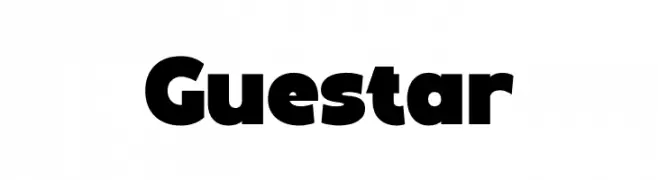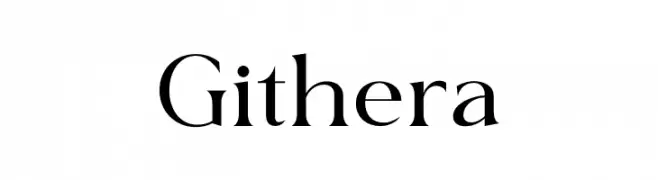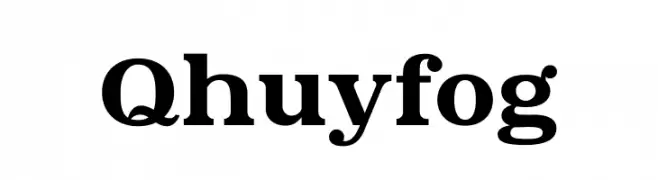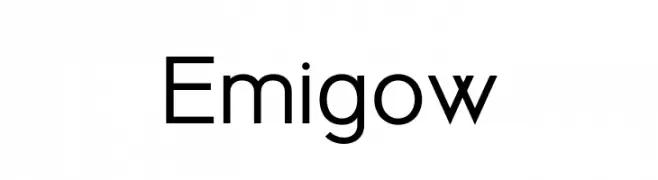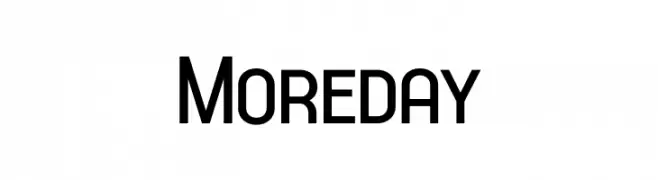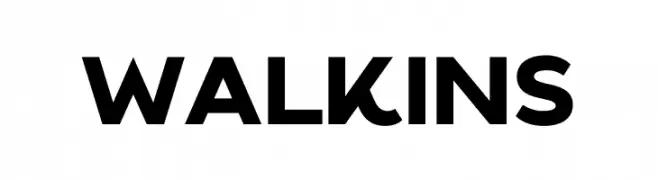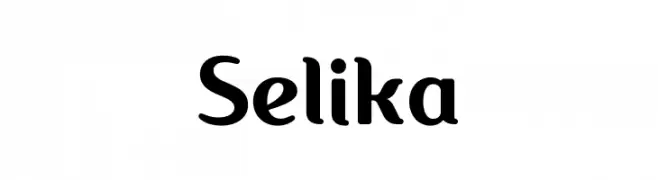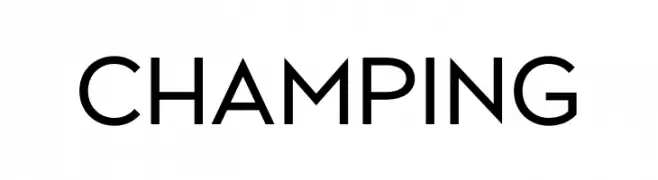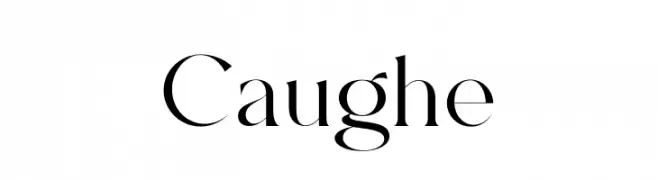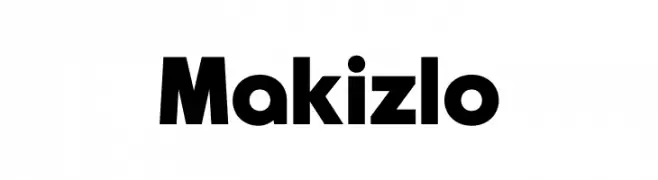
A bold, modern font with thick, uniform strokes and a strong presence.
A classic serif font with high contrast and sharp serifs, exuding elegance and readability.
A bold, classic serif font with strong strokes and pronounced serifs.
A modern, geometric sans-serif font with clean lines and uniform strokes.
A modern, geometric sans-serif font with clean lines and uniform stroke width.
A bold, modern sans-serif font with clean lines and strong presence.
A modern, versatile font with medium contrast and a clean, elegant design.
A modern, geometric sans-serif font with clean lines and uniform strokes.
A high-contrast serif font with elegant, sharp serifs and a modern touch.
A bold, geometric typeface with a modern and commanding presence.